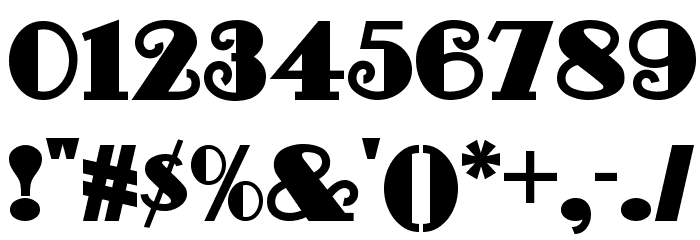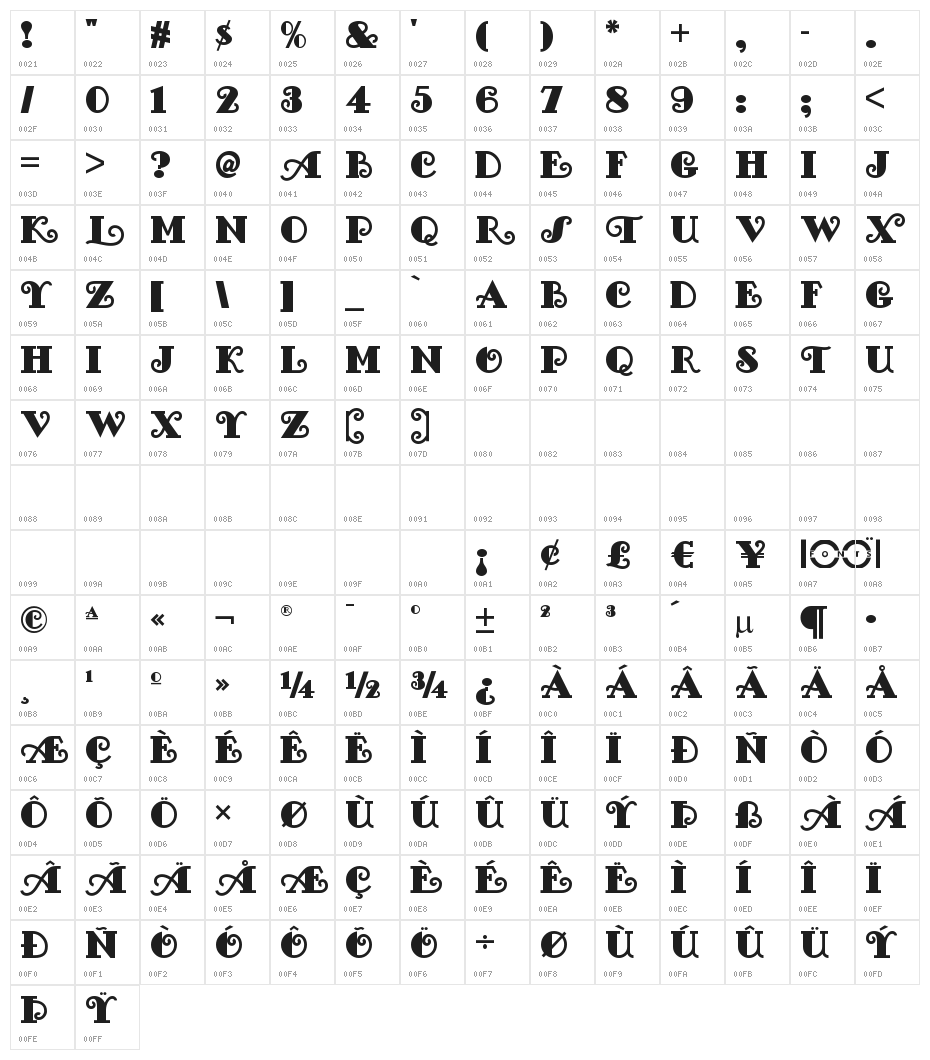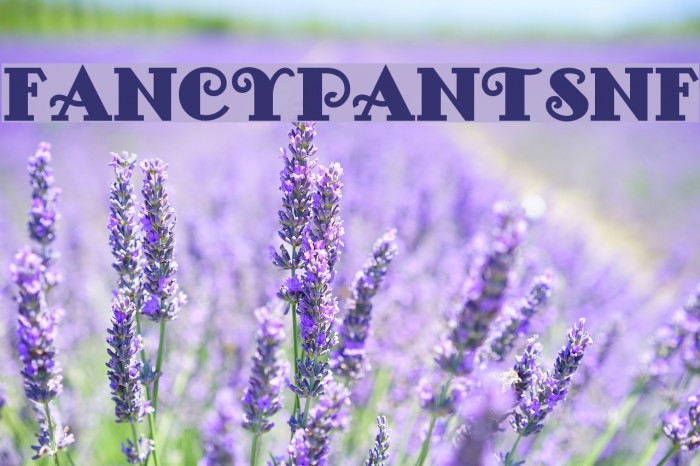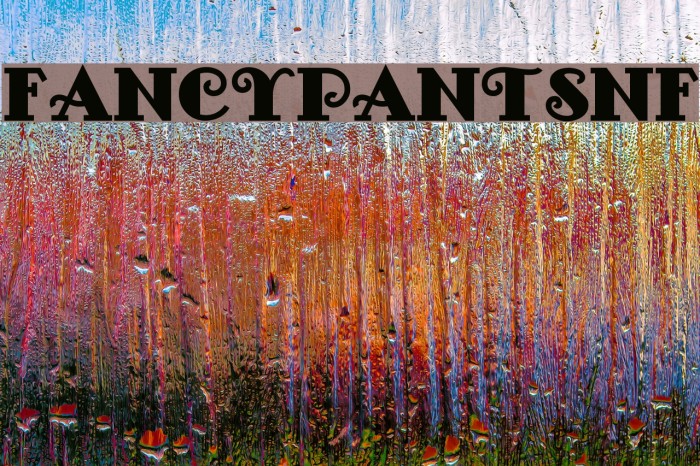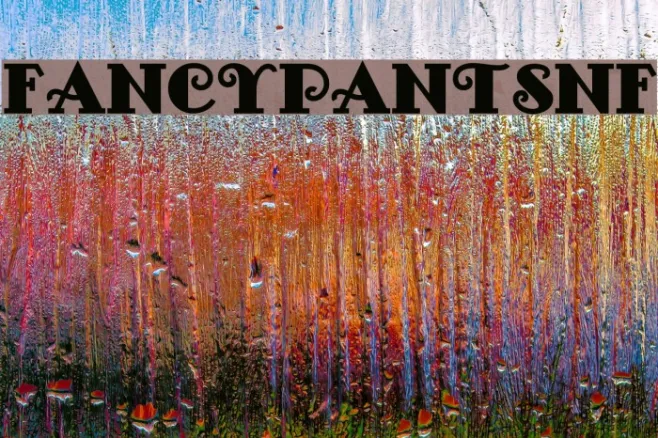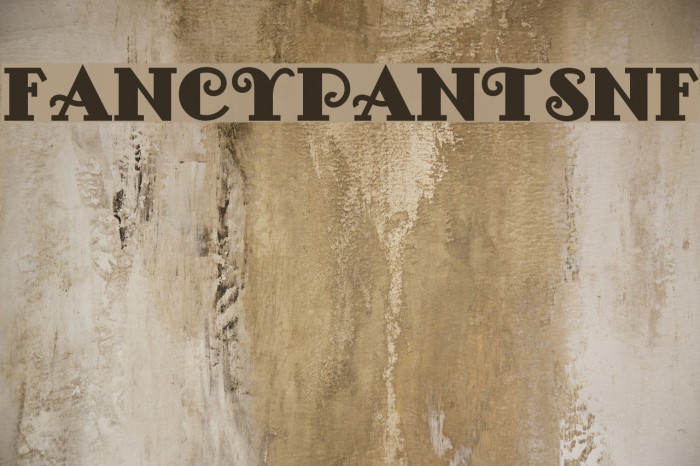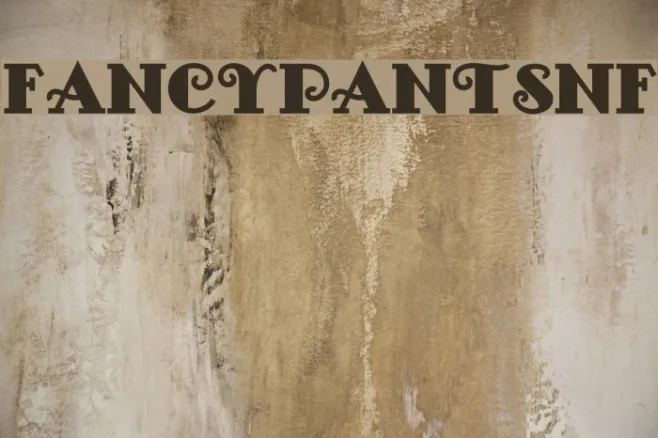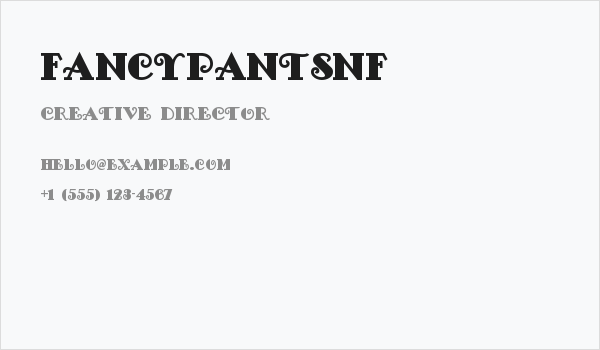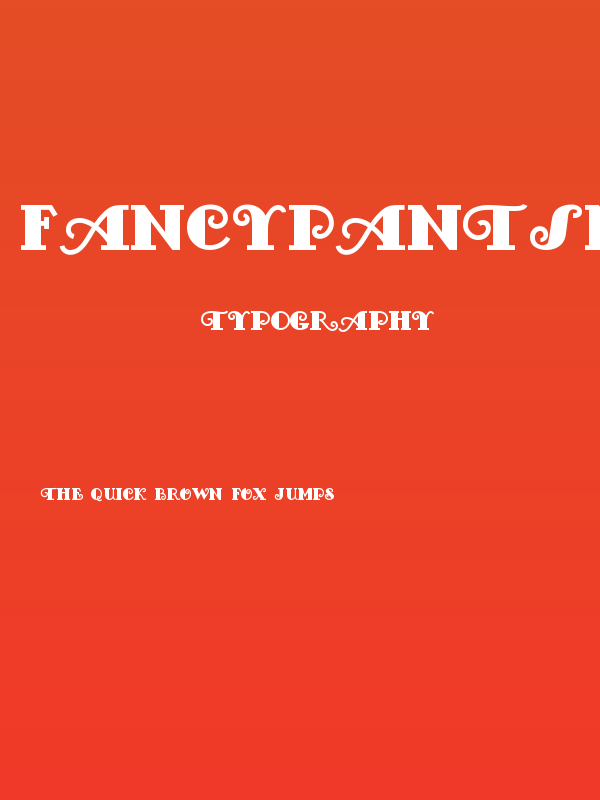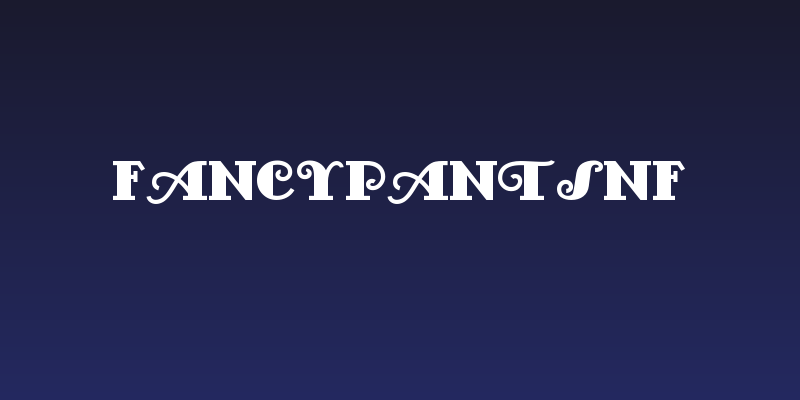
FancyPantsNF Font
FancyPantsNF Description
This font features a bold and decorative style with intricate swirls and curls integrated into the characters, giving it a whimsical and playful appearance. The uppercase letters are particularly ornate, with flourishes that extend from the main strokes, adding a sense of elegance and flair. The lowercase letters maintain a consistent style, with some characters featuring unique embellishments that enhance their visual appeal. The numerals are bold and consistent with the overall decorative theme, making them stand out. Special characters are also designed with the same attention to detail, ensuring a cohesive look across all elements.